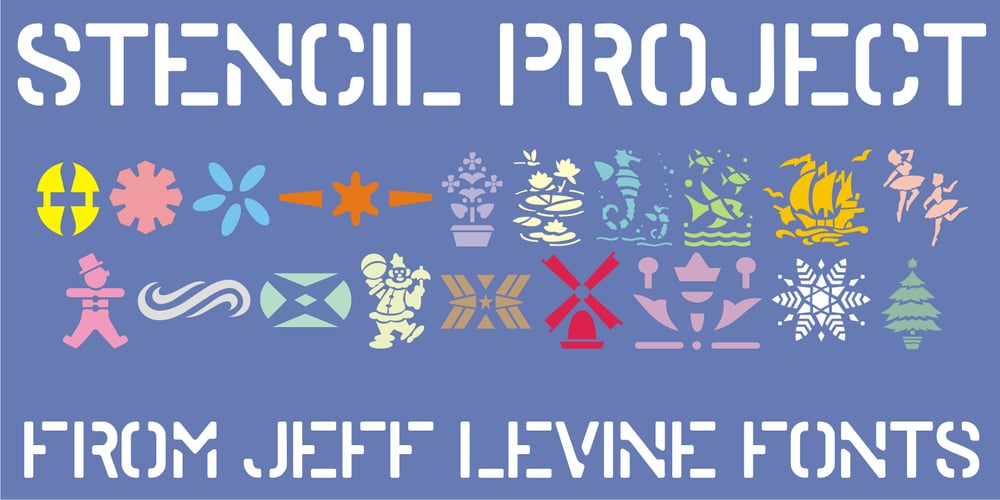
Stencil Project JNL
Stencil Project JNL font
Stencil Project JNL Font Family was designed by Jeff Levine and published by Jeff Levine. Stencil Project JNL contains 1 styles and family package options. Stencil Project JNL combines a number of themes within the many decorative stencil designs re-drawn from vintage sources.